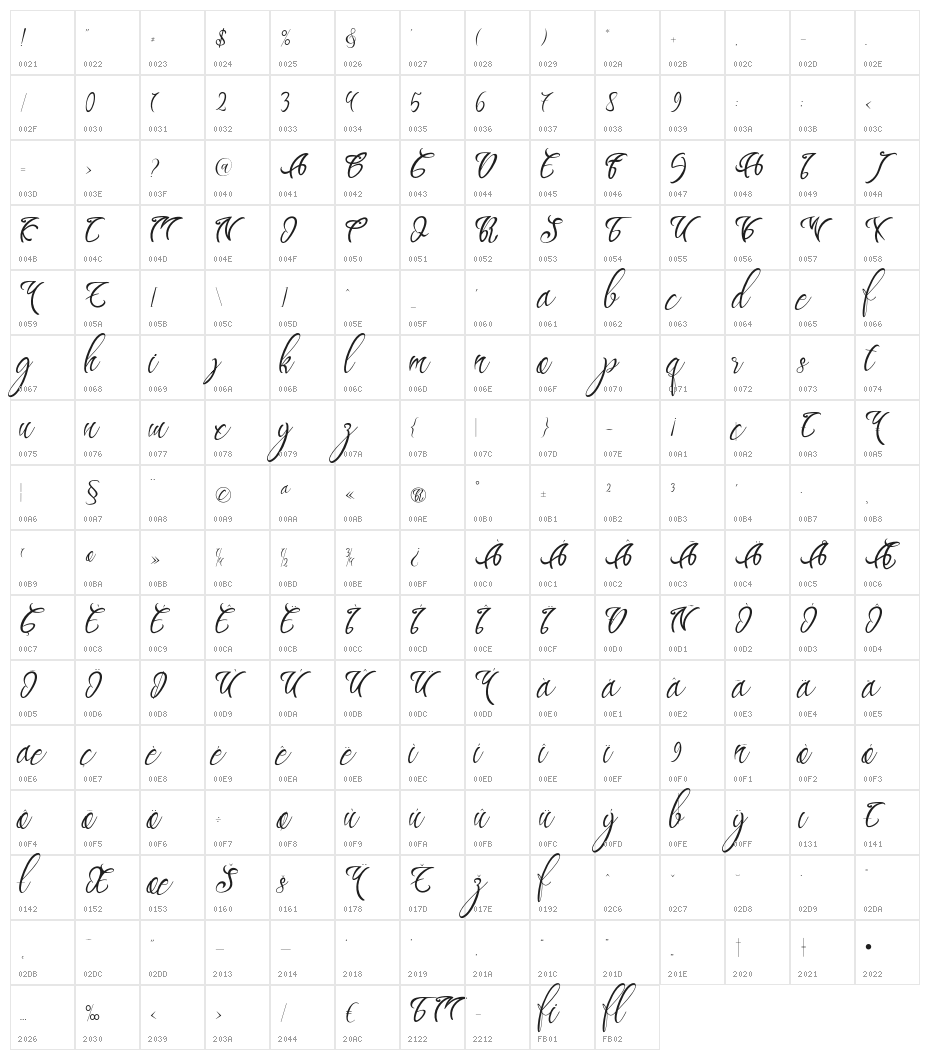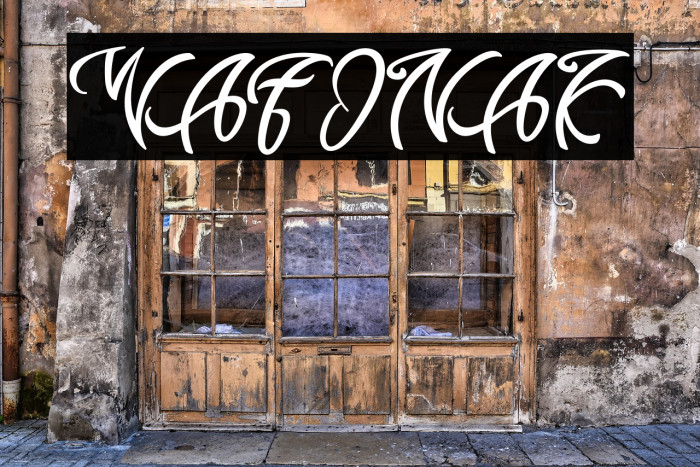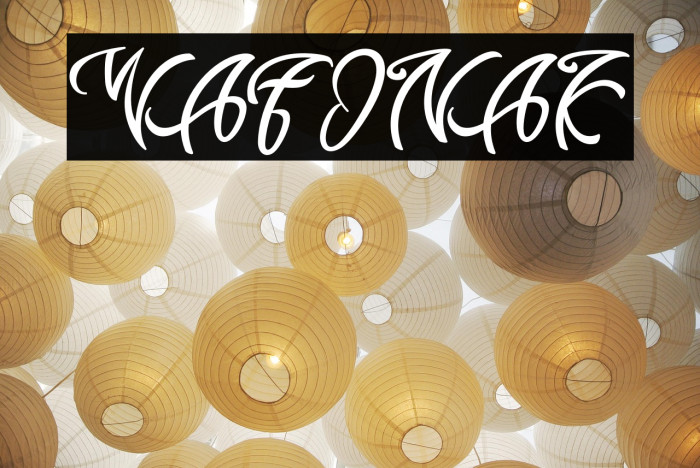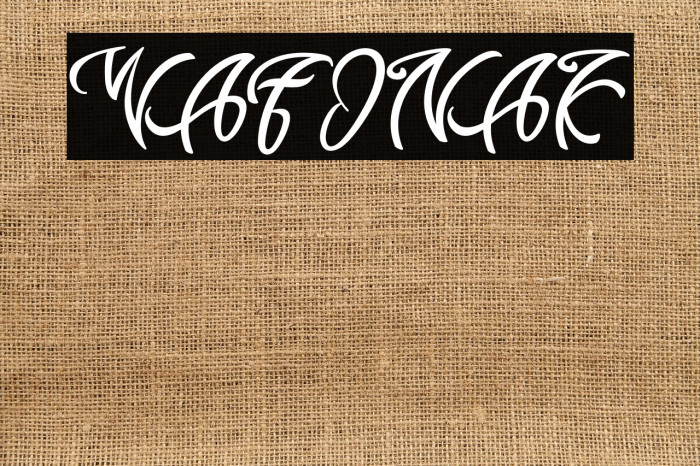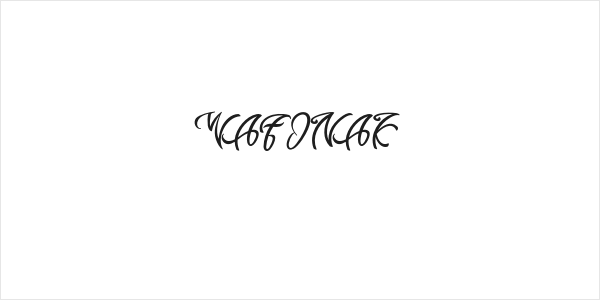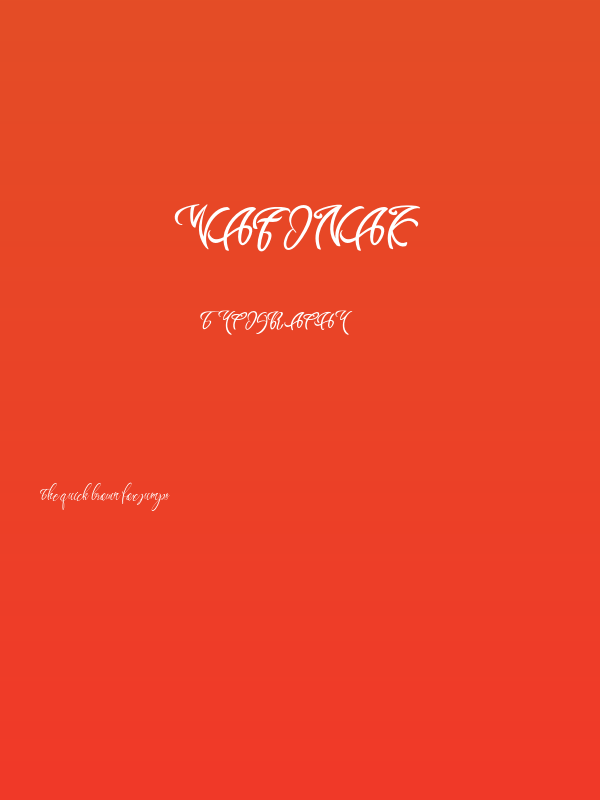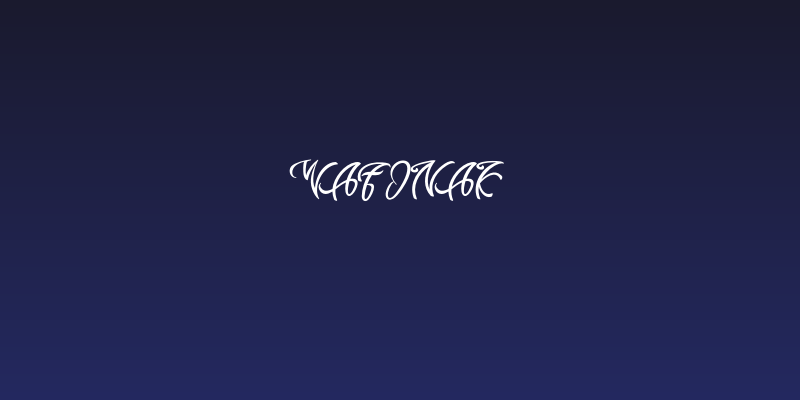
WAFONAK Font
WAFONAK Description
This elegant script font features flowing, cursive letterforms with a distinct calligraphic style. The characters are interconnected, creating a seamless and fluid appearance. The uppercase letters are ornate and slightly larger, while the lowercase letters maintain a consistent flow. The font exhibits a high contrast in stroke thickness, adding to its sophisticated and refined look. It includes a full set of numerals and a variety of punctuation marks, enhancing its versatility for different design needs.
| Overall Style | Elegant, Calligraphic |
| Use Case | Invitations, Branding, Signatures |
| Proposed Projects | Ideal for wedding invitations, elegant branding, personal signatures, and decorative headings. |